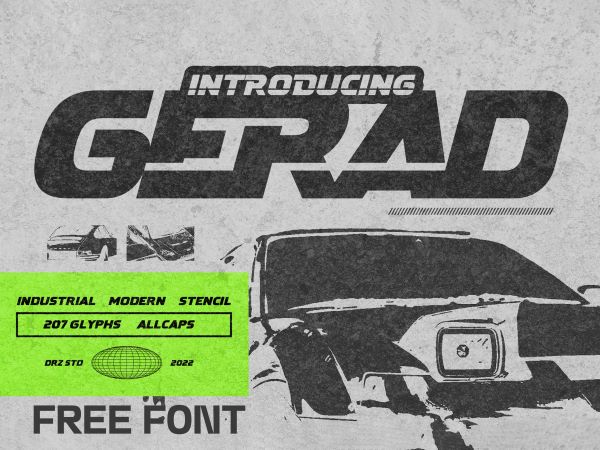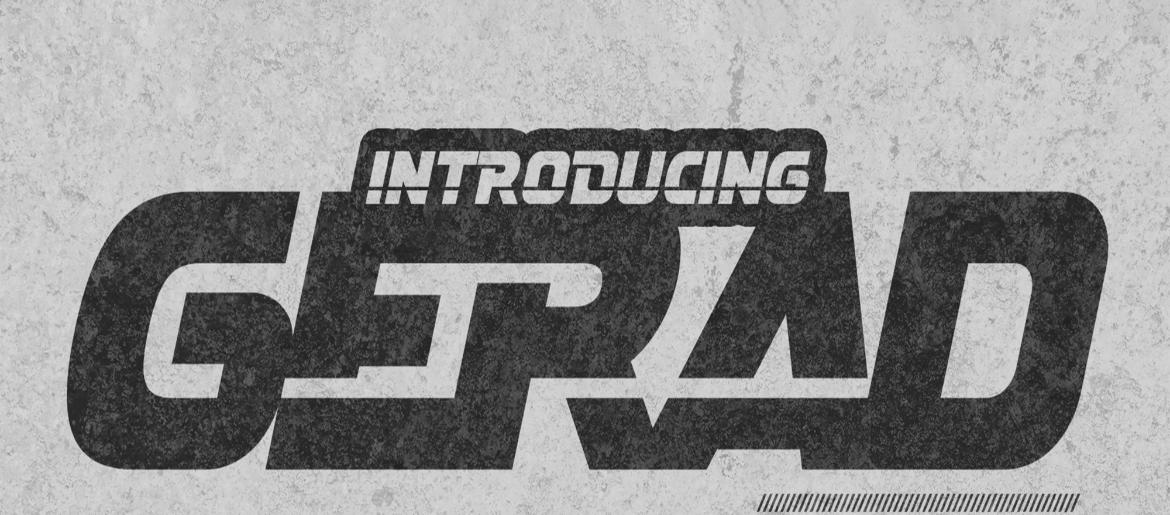
Gerad by Drizy Font is an industrial modern stencil display typeface that channels the visual language of machinery, manufacturing, and urban grit with a contemporary sharpness that keeps it from feeling purely nostalgic. Its stencil construction gives every letterform a bold, utilitarian authority — the kind of type that looks at home on factory walls, product packaging, logistics branding, and poster design that needs to project raw power and edgy credibility. Whether the brief calls for industrial heritage or a gritty modern aesthetic, Gerad delivers its distinctive character without compromise. A free demo version is available for personal use.
Gerad is an industrial modern stencil display typeface in our free font collection, from Drizy Font — an Indonesia-based creative type studio known for producing bold, category-defining typefaces that push display typography into new and distinctive territories. Browse our full library of free fonts and discover more distinctive typefaces crafted by independent designers around the world.